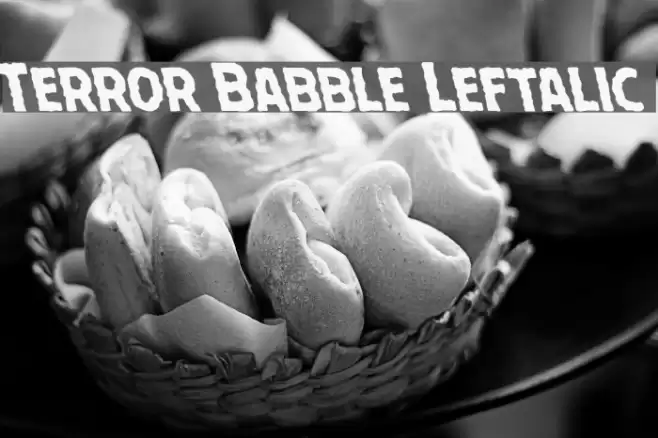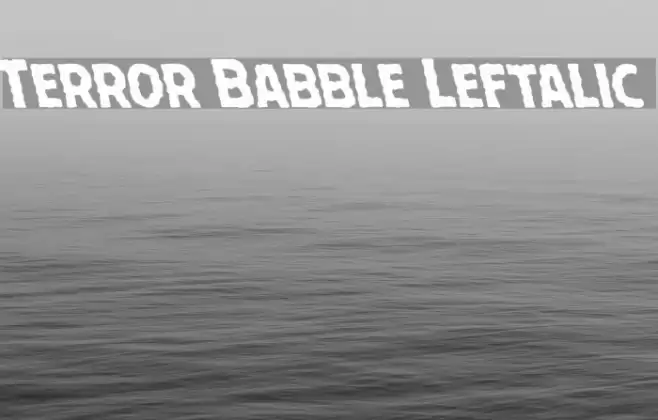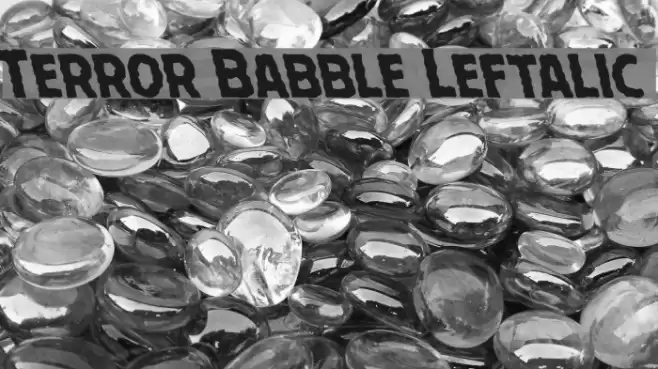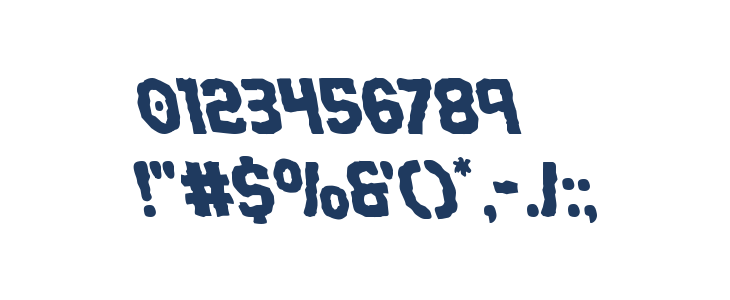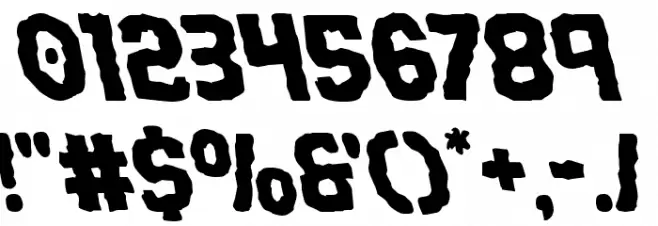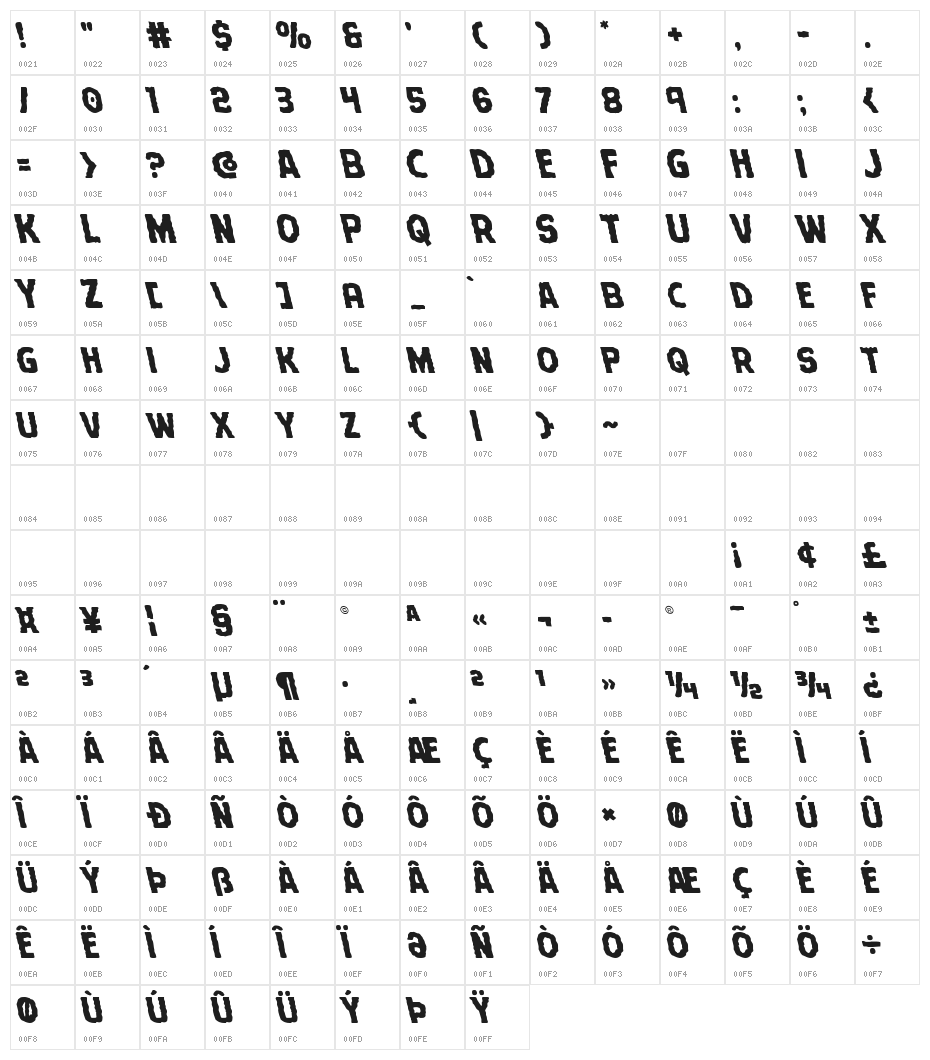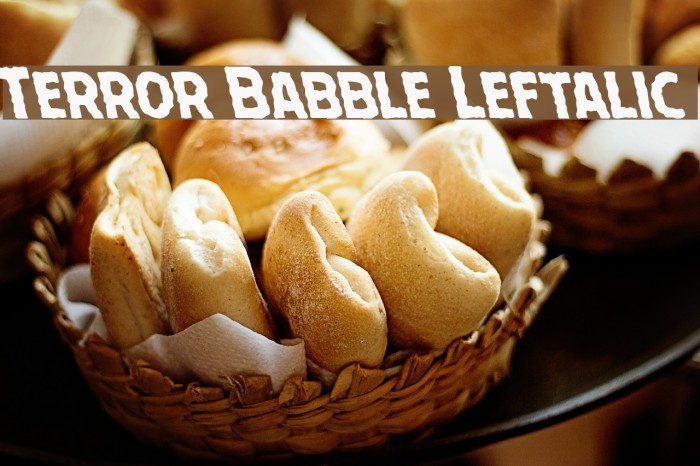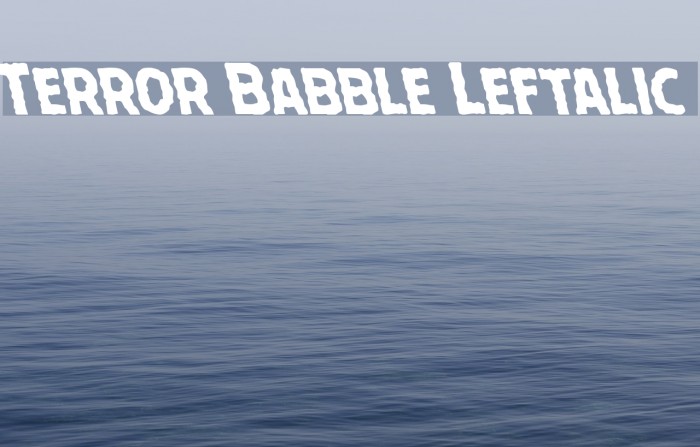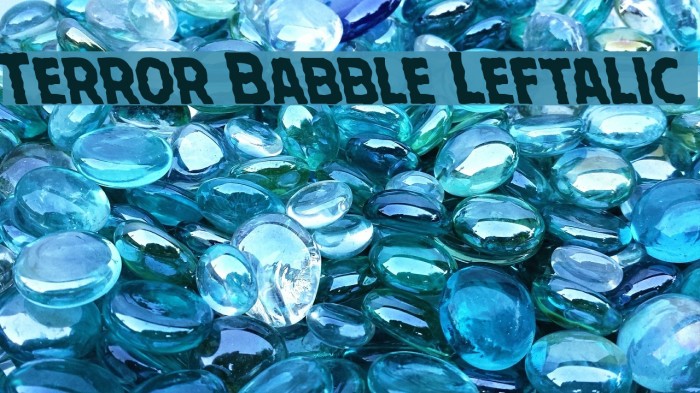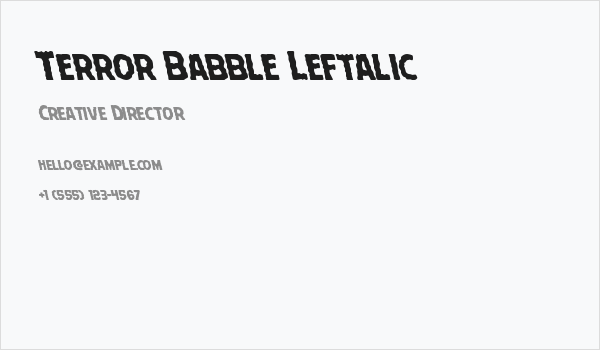
Terror Babble Leftalic Font
Terror Babble Leftalic Description
This font features a bold and rugged style with a distressed appearance, giving it a unique and edgy look. The characters are slightly slanted, adding a dynamic and energetic feel. The uppercase and lowercase letters maintain a consistent thickness, contributing to a cohesive design. The numbers and special characters follow the same aesthetic, ensuring uniformity across all glyphs. This font's rough texture and bold presence make it stand out, perfect for projects that require a strong visual impact.
A bold, distressed font with a rugged and dynamic style from Uncategorized fonts.
- Proposed Projects: Ideal for horror-themed posters, edgy branding, album covers, and graphic novels.